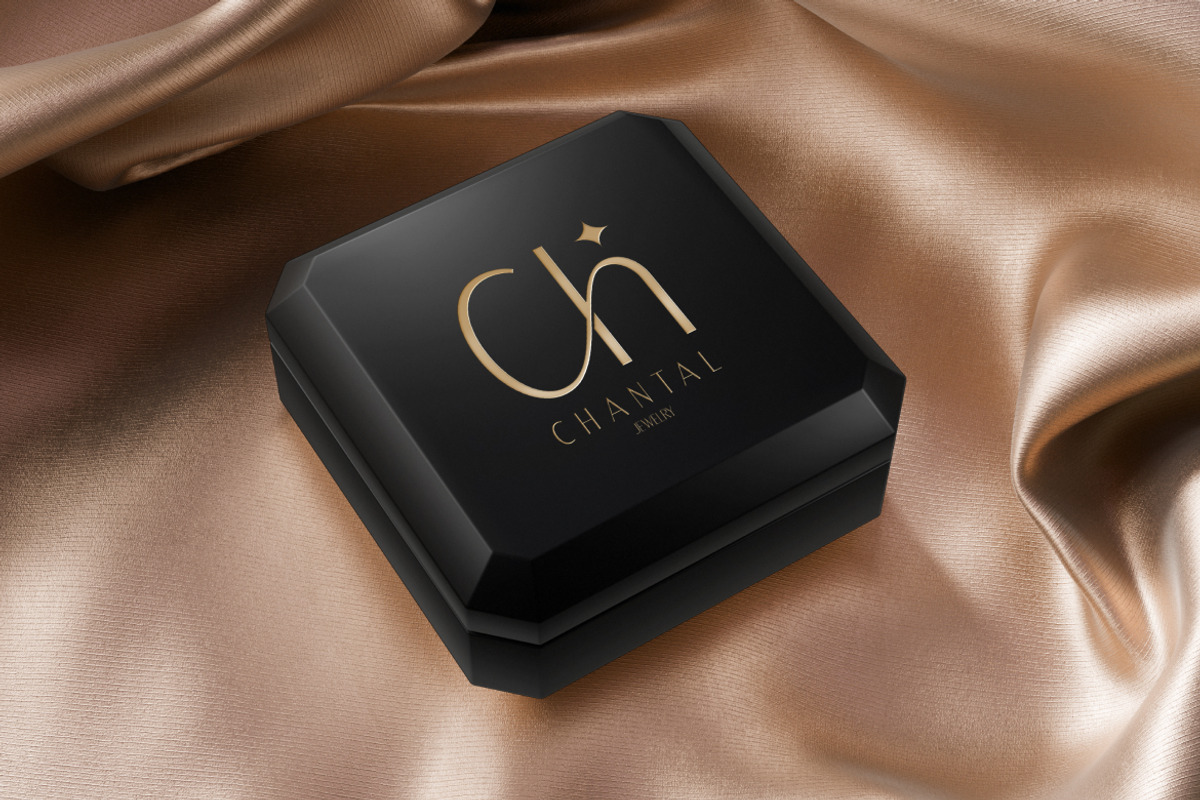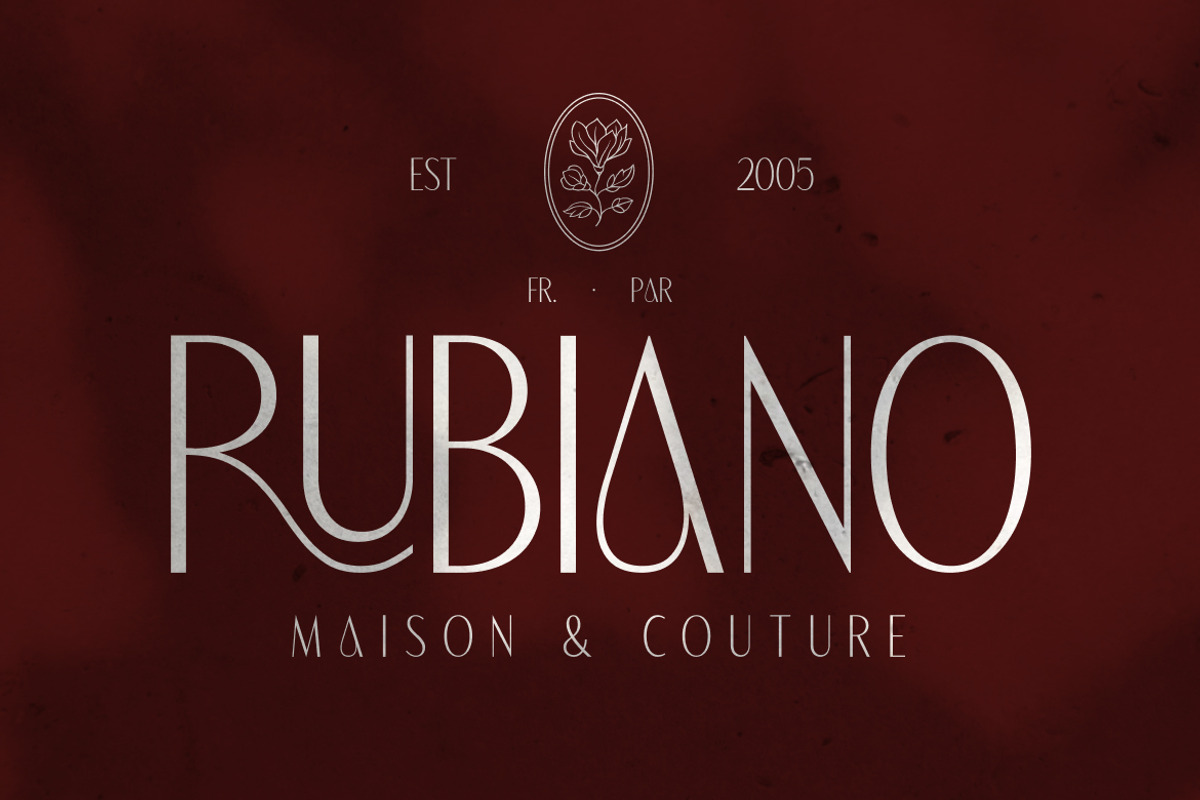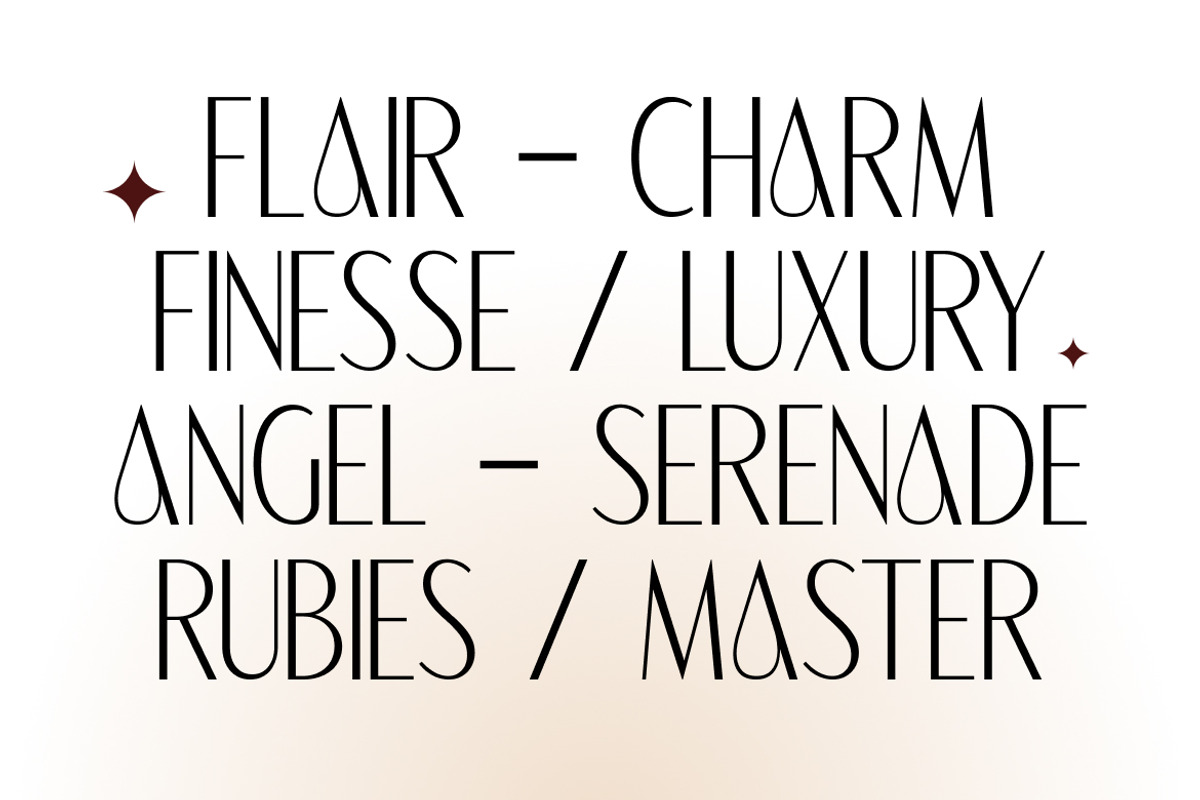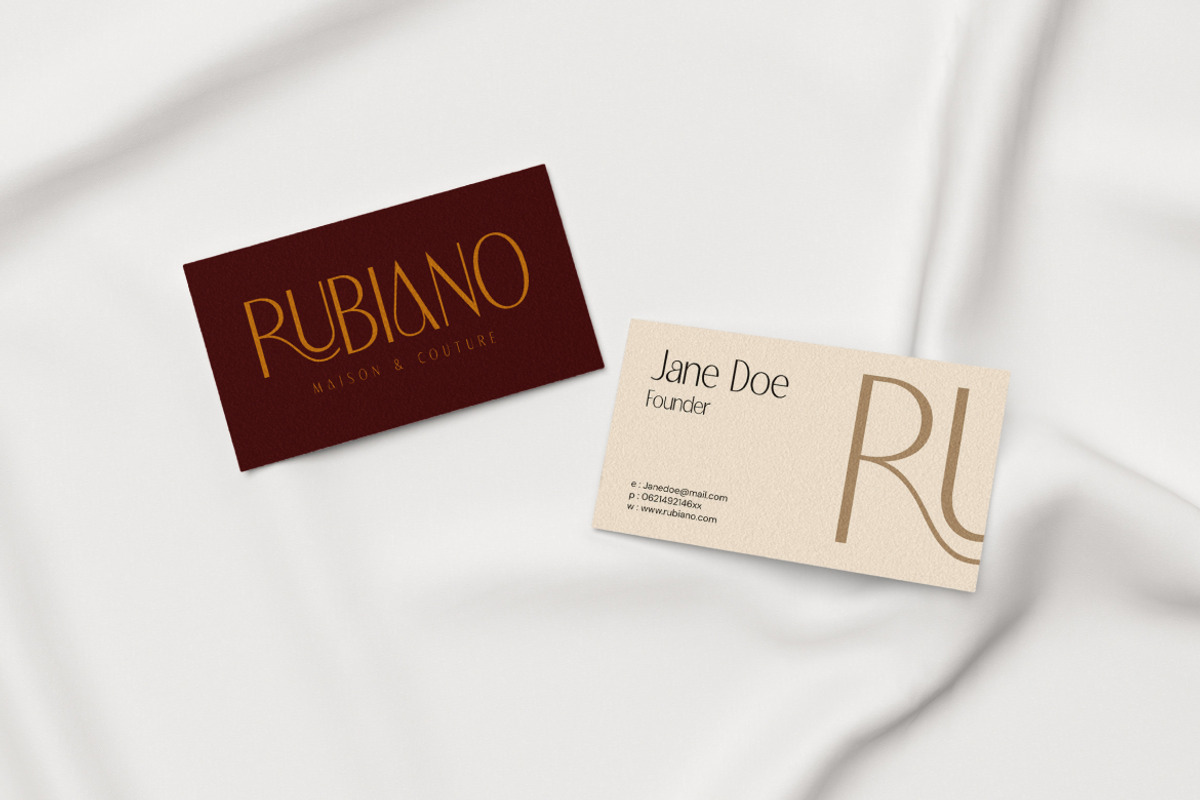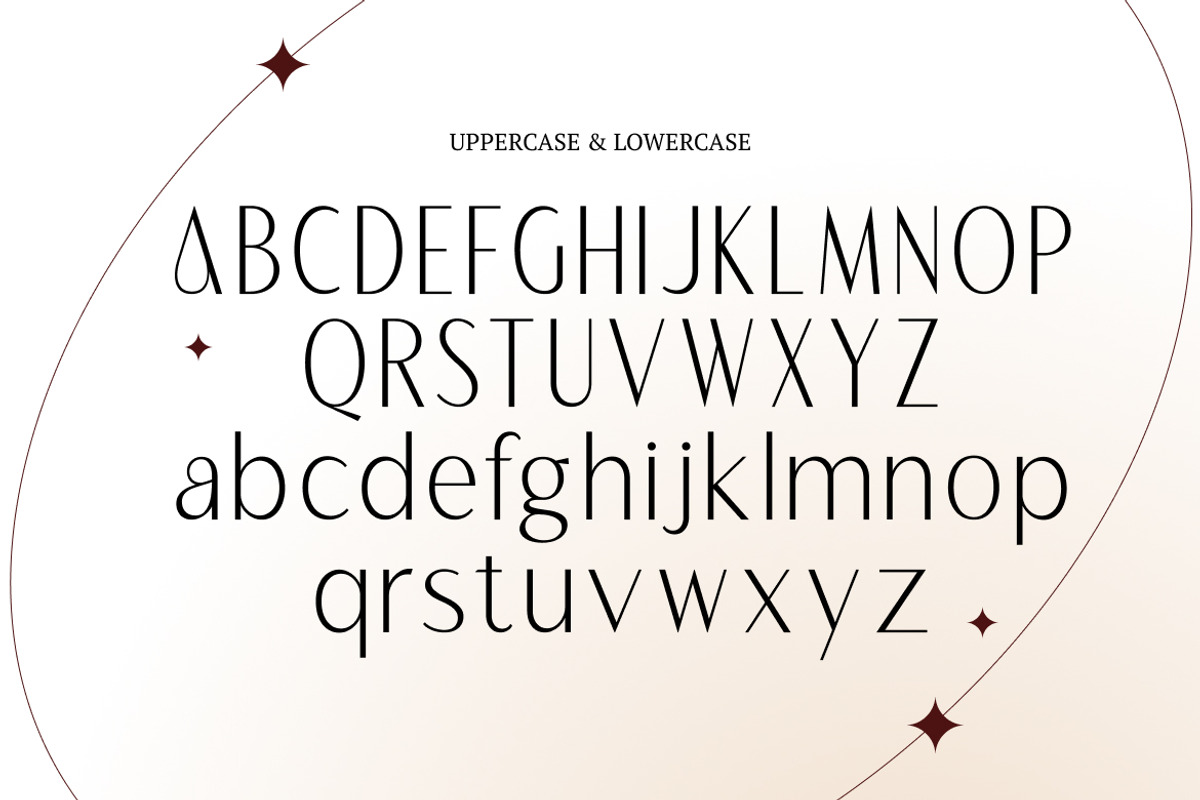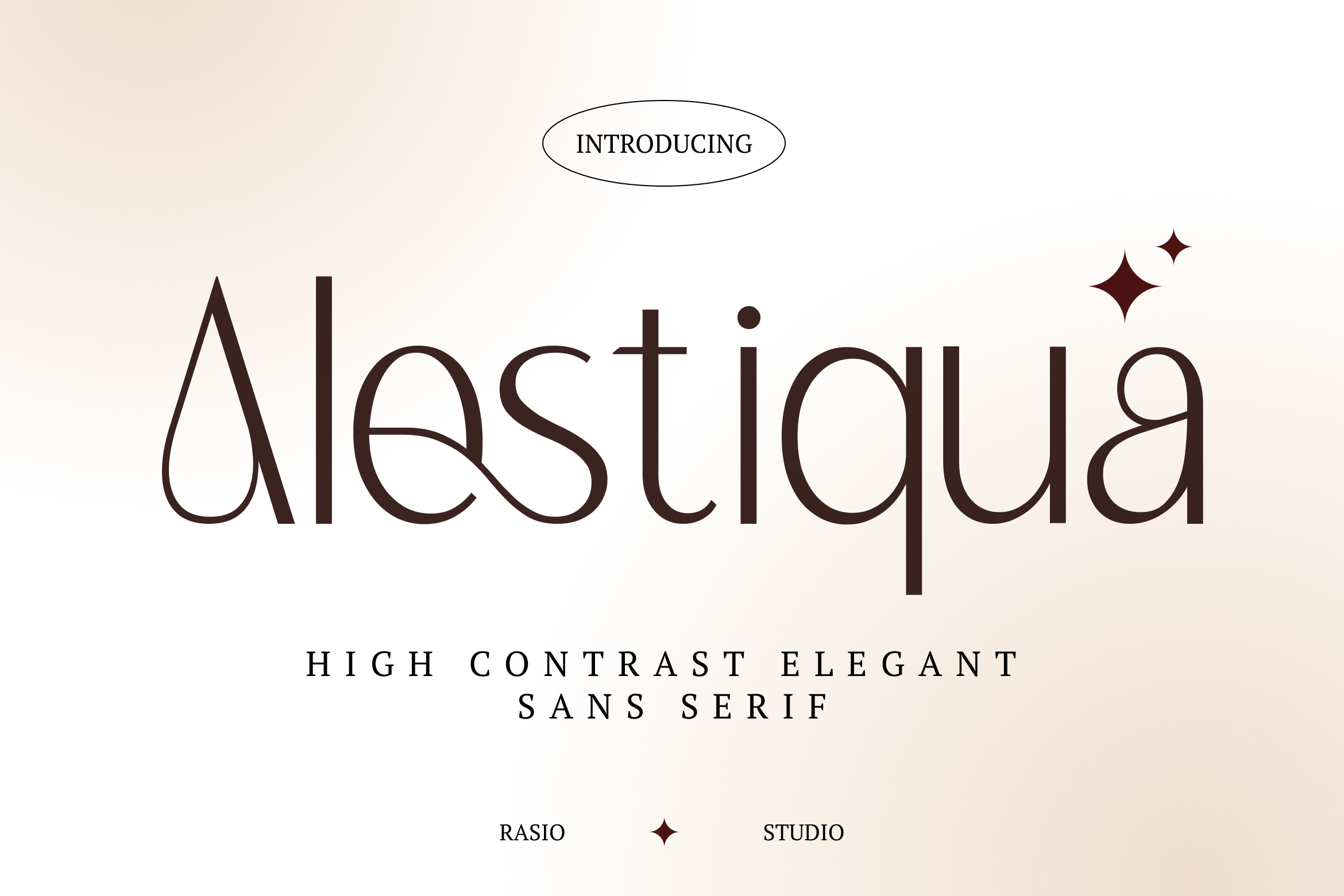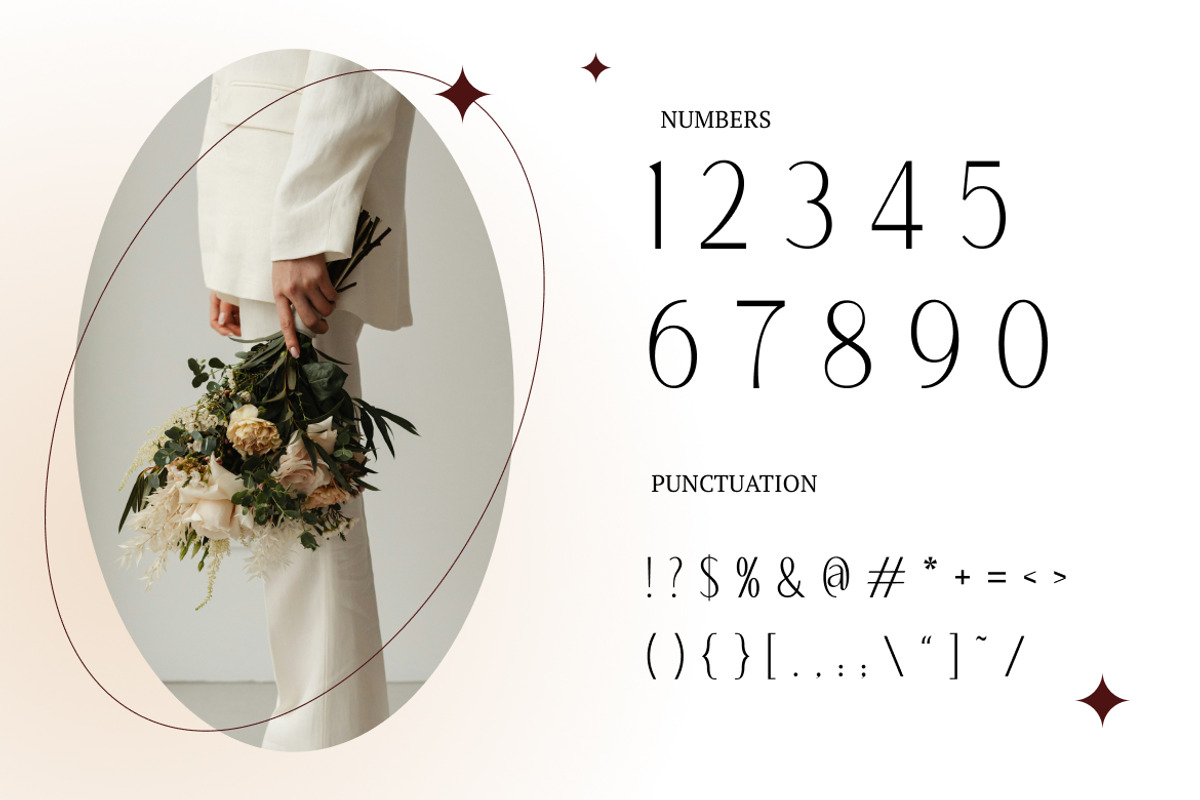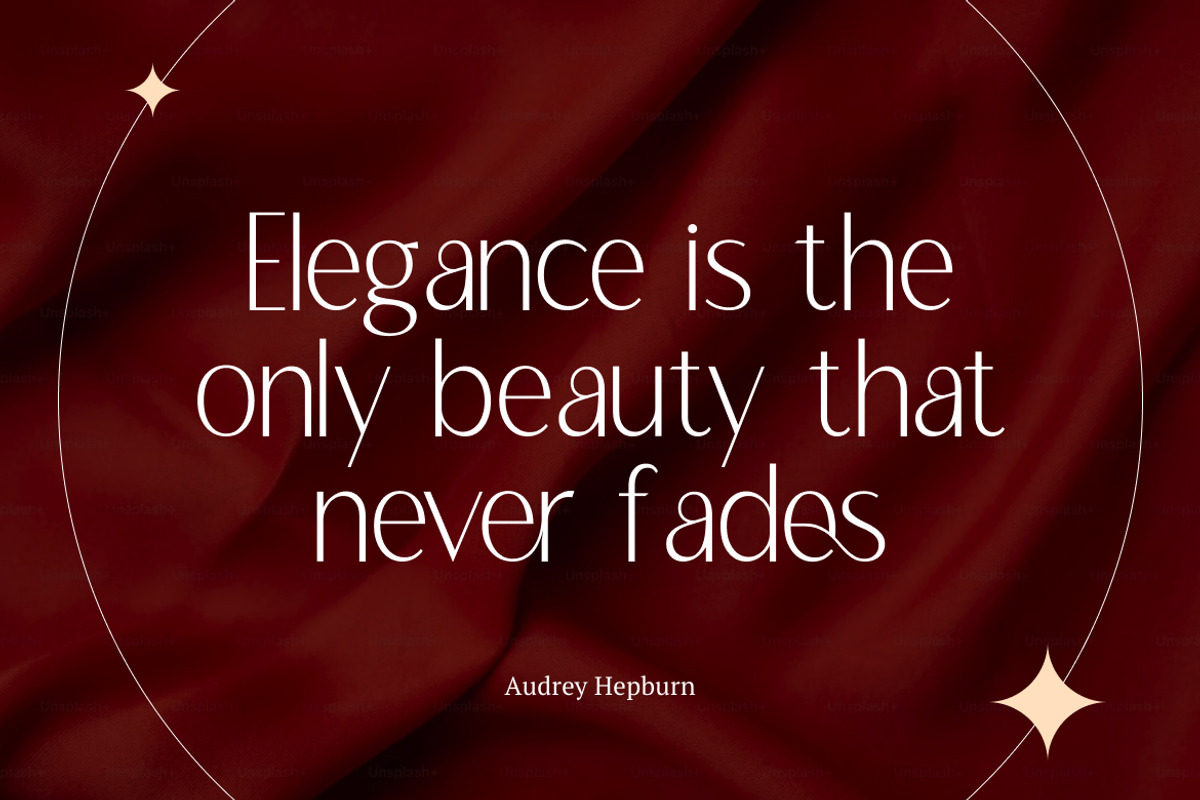
Alestiqua Elegant Sans Serif Font
Alestiqua is a sophisticated high-contrast sans serif typeface that blends minimal elegance with artistic geometry. Featuring fluid curves, stylish terminals, and luxurious proportions, Alestiqua is crafted to bring modern refinement to branding, editorial layouts, and luxury design projects. The typeface includes uppercase and lowercase characters, punctuation, numerals, and multilingual support, making it a versatile asset for a range of creative applications.
Alestiqua is highly relevant for projects that require a blend of modern minimalism and expressive sophistication. It's perfect for branding high-end products, fashion lines, lifestyle blogs, digital media, and editorial publications. Whether used for headlines or subtle accents, it provides a sleek, polished look that communicates elegance and clarity.
- Elegant sans serif structure with high contrast strokes for dramatic sophistication
- Distinctive teardrop terminals and custom ligatures for added visual flair
- Minimalist geometric foundation refined with graceful curves
- Tall letterforms and tight proportions for modern vertical rhythm
- Balanced spacing and clean forms ensure readability in both display and branding use
- Luxury brand identities and high-end fashion logos
- Editorial layouts and beauty magazines seeking a refined, modern look
- Product packaging for cosmetics, perfume, or lifestyle goods
- Elegant website headers and minimal portfolio designs
- Wedding stationery, upscale invitations, or boutique branding kits
Alestiqua is your type for stylish visual statements, modern elegance meets high contrast